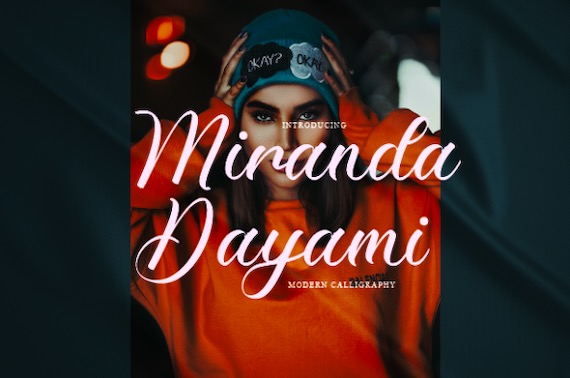
Miranda Dayami is a lovely and timeless handwritten font. It is the best choice for creating eye-catching logos, branding, and quotes. Every letter has a unique and beautiful touch, which will make your design come alive!
Miranda Dayami Handwritten Font